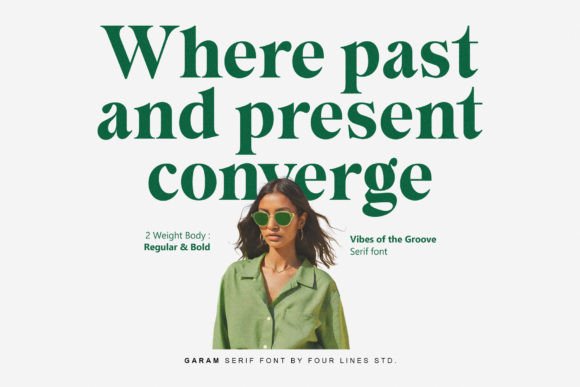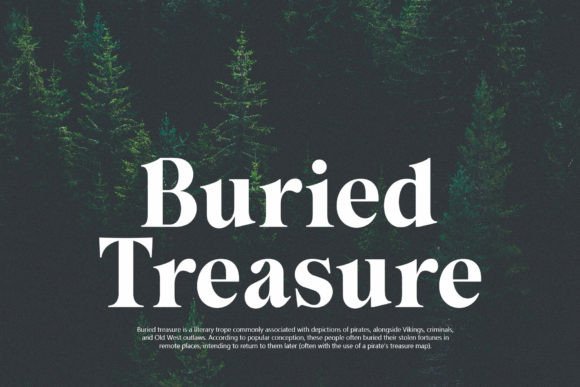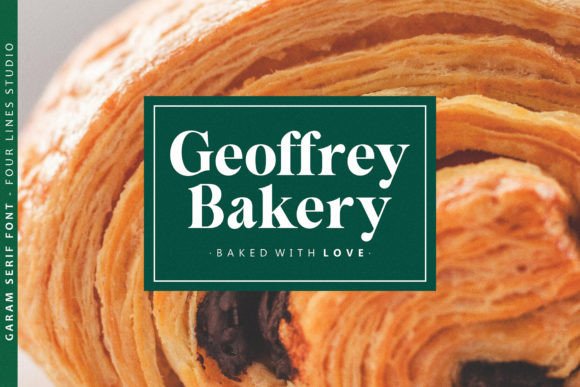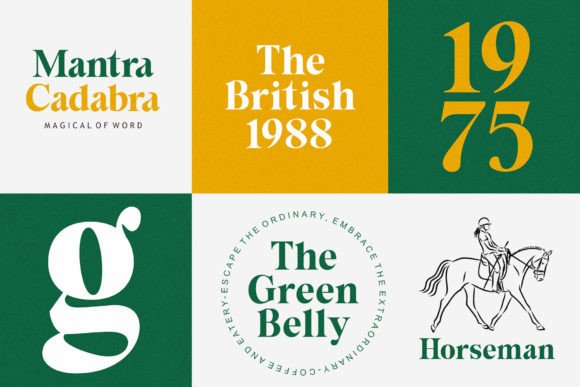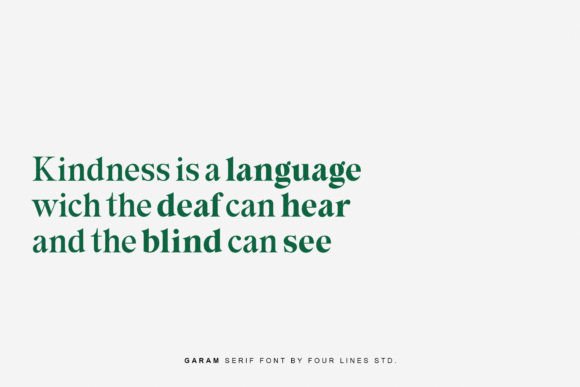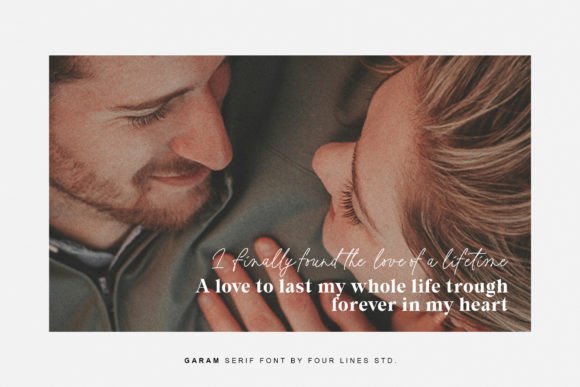
Introducing Garam Font: Elevate Your Designs with Elegance and Sophistication
In the world of typography, fonts play a crucial role in conveying the tone and personality of a brand or design. For designers and crafters seeking a font that exudes elegance, sophistication, and boldness, Garam Font is an exceptional choice. This stunning serif font is characterized by its sleek curves, making it perfect for fashion branding, editorial projects, and any design that requires a touch of luxury.
The Distinctive Features of Garam Font
Garam Font stands out from the crowd with its unique blend of classic and modern elements. Its serif design provides a sense of tradition and reliability, while its sleek curves add a touch of modernity and flair. This font is meticulously crafted to ensure that it looks stunning in various design applications, from digital platforms to print materials.
Ideal for Fashion Branding and Editorial Projects
Fashion and editorial designers often seek fonts that can convey a sense of style, elegance, and sophistication. Garam Font fits the bill perfectly, offering a distinctive and refined look that can elevate any design. Whether you’re working on a fashion magazine, a luxury brand’s logo, or an editorial piece, this font is sure to make a lasting impression.
PUA Encoding for Enhanced Customization
One of the significant advantages of Garam Font is its PUA (Private Use Area) encoding. This feature provides designers with effortless access to a wide array of glyphs and swashes, allowing for enhanced customization and flexibility. With PUA encoding, you can easily incorporate special characters, ligatures, and swashes into your designs, taking them to the next level.
Unlock a Myriad of Creative Opportunities
By embracing Garam Font in your designs, you unlock a myriad of creative opportunities. This font can be used in various design applications, including:
- Fashion branding: logos, labels, and packaging
- Editorial projects: magazines, newspapers, and books
- Digital platforms: websites, social media, and blogs
- Print materials: brochures, flyers, and posters
Why Choose Garam Font?
There are several reasons why Garam Font should be your go-to choice for your next design project:
- Elegance and sophistication: Garam Font exudes luxury and refinement, making it perfect for high-end designs.
- Versatility: This font can be used in various design applications, from digital to print.
- Customization: PUA encoding provides effortless access to glyphs and swashes, allowing for enhanced customization.
- Unique look: Garam Font’s sleek curves and serif design ensure that your designs stand out from the crowd.
In conclusion, Garam Font is an exceptional choice for designers and crafters seeking a font that embodies elegance, sophistication, and boldness. Its sleek curves, PUA encoding, and versatility make it an ideal choice for fashion branding, editorial projects, and various design applications. By incorporating Garam Font into your designs, you’ll unlock a myriad of creative opportunities and take your designs to the next level.